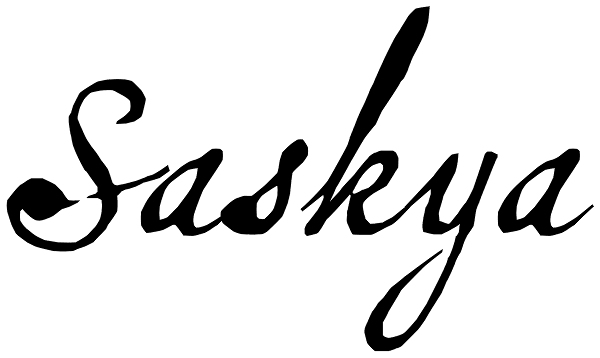
Saskya
While I was in Boston in 2014, I visited the Museum of Fine Arts and to my good fortune there was an exhibit of etchings by Rembrandt, one of my favorite artists. As to be expected, many were simply gorgeous, but one especially caught my eye. It was...